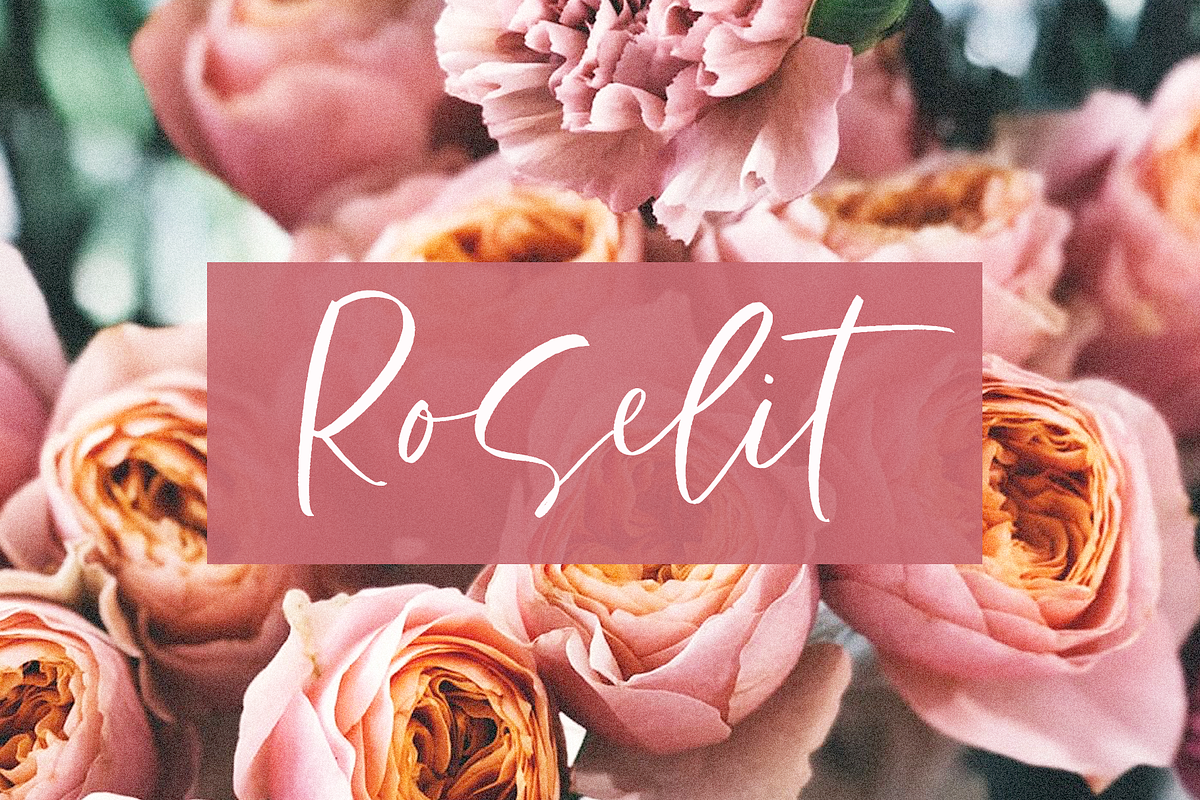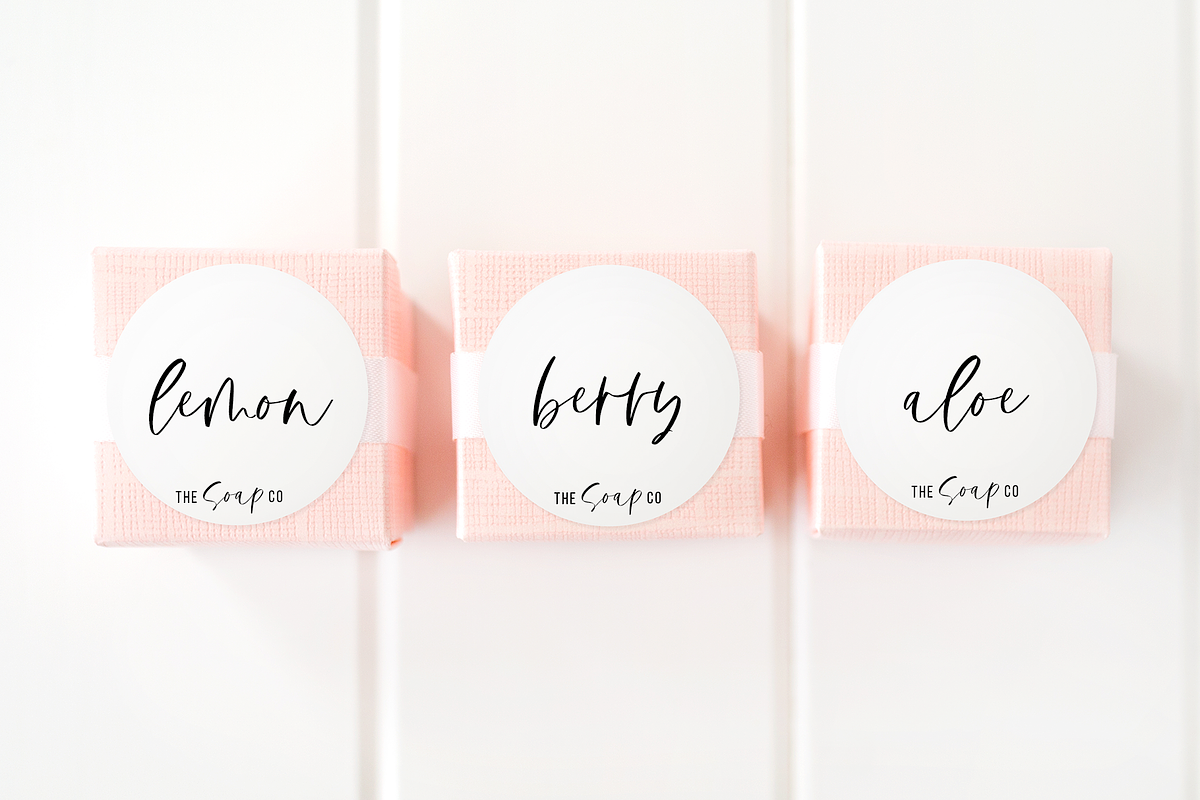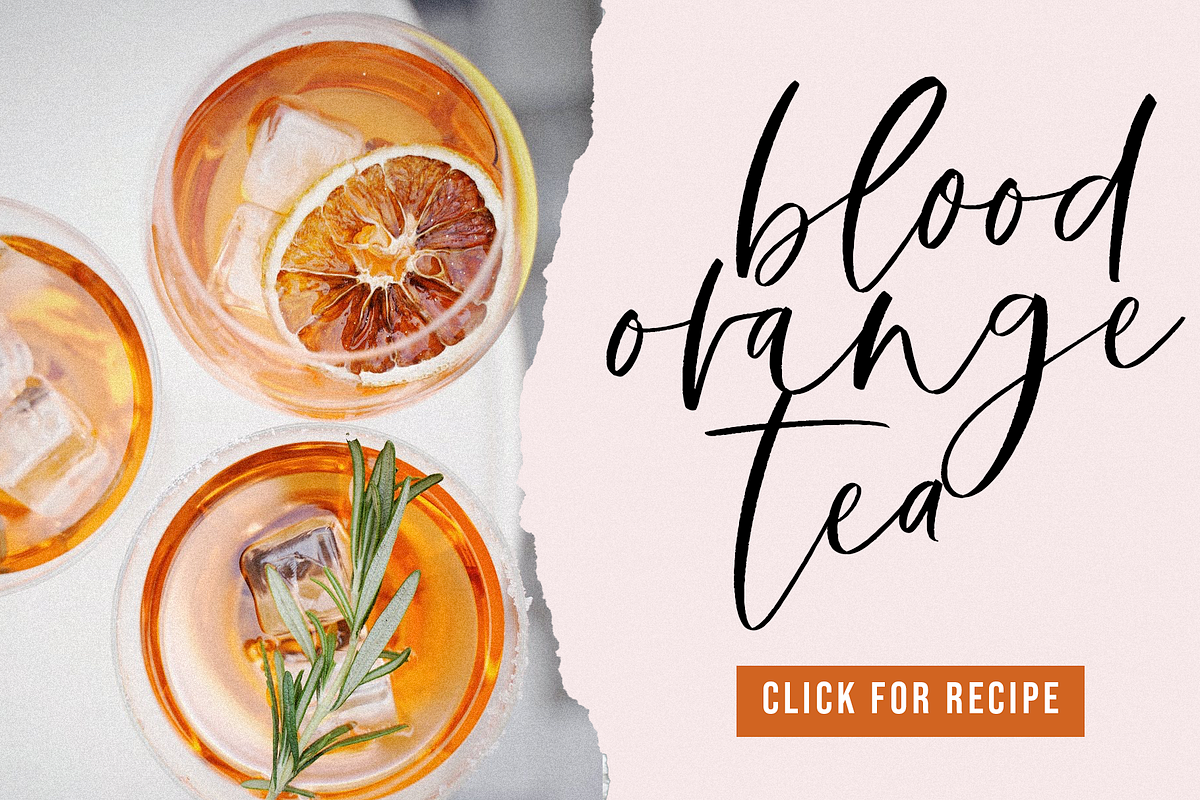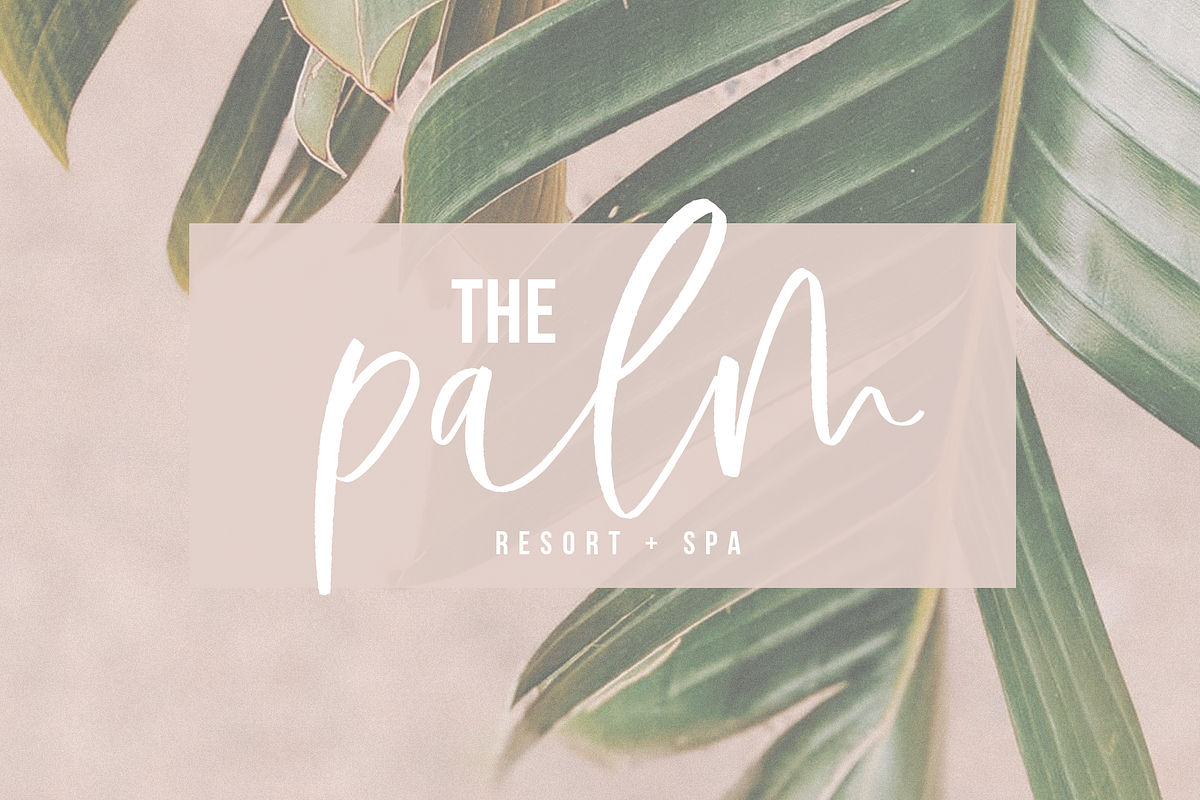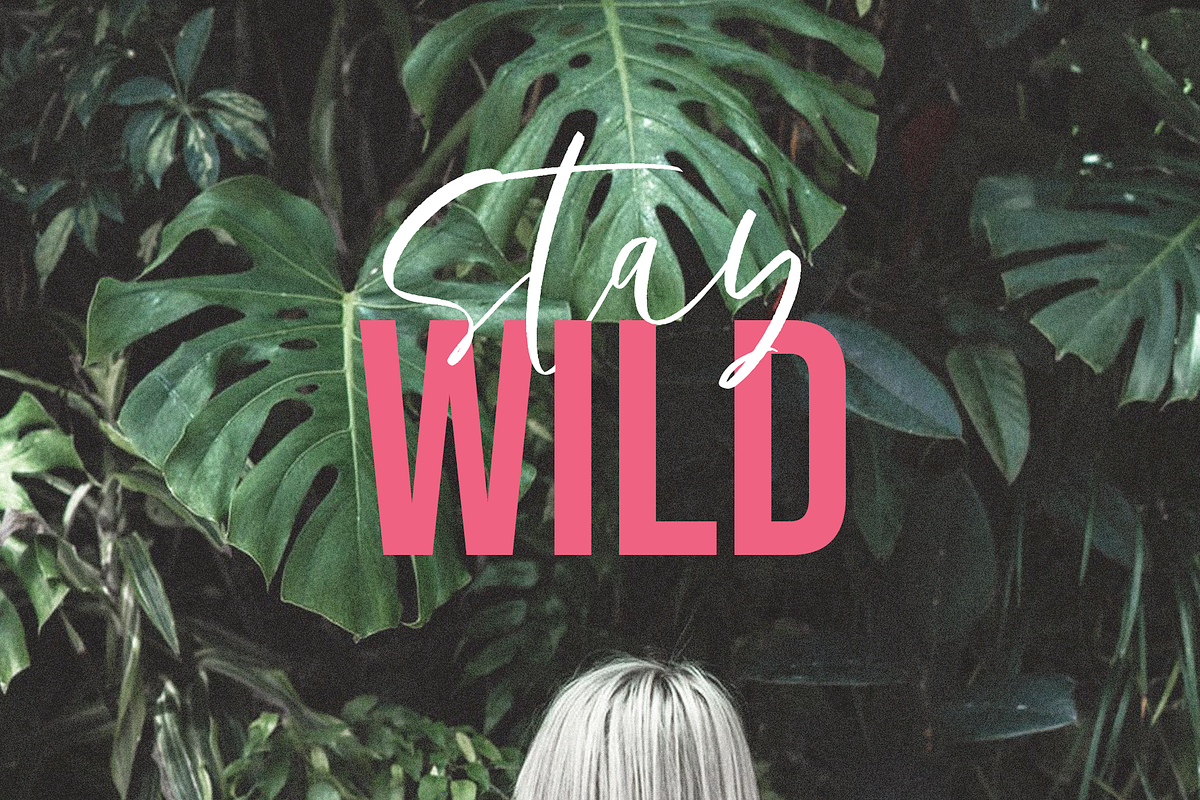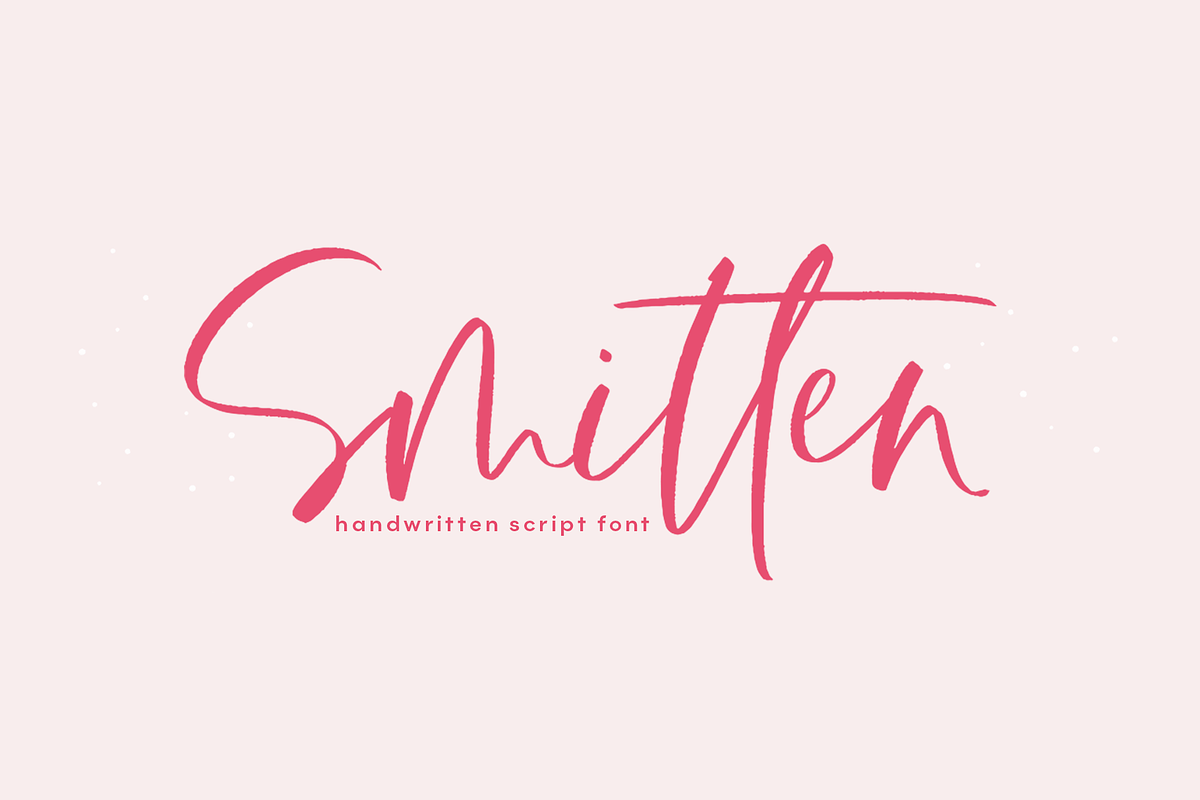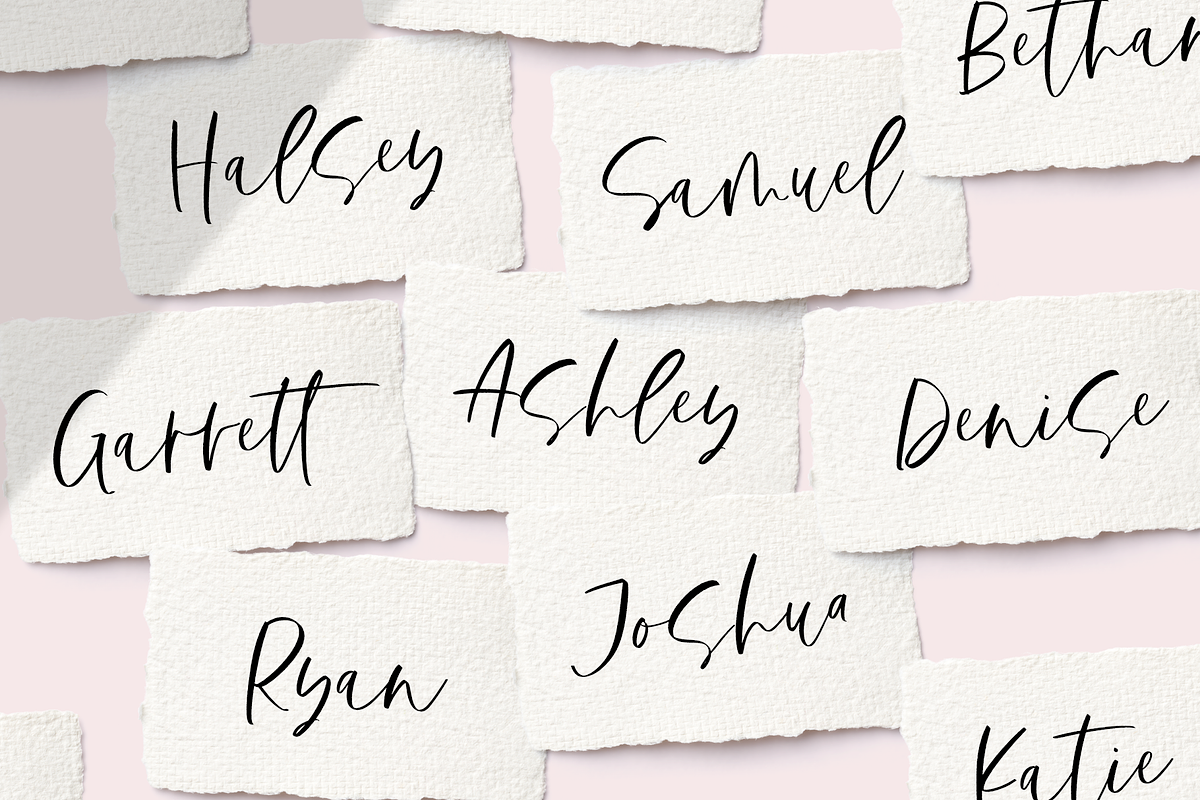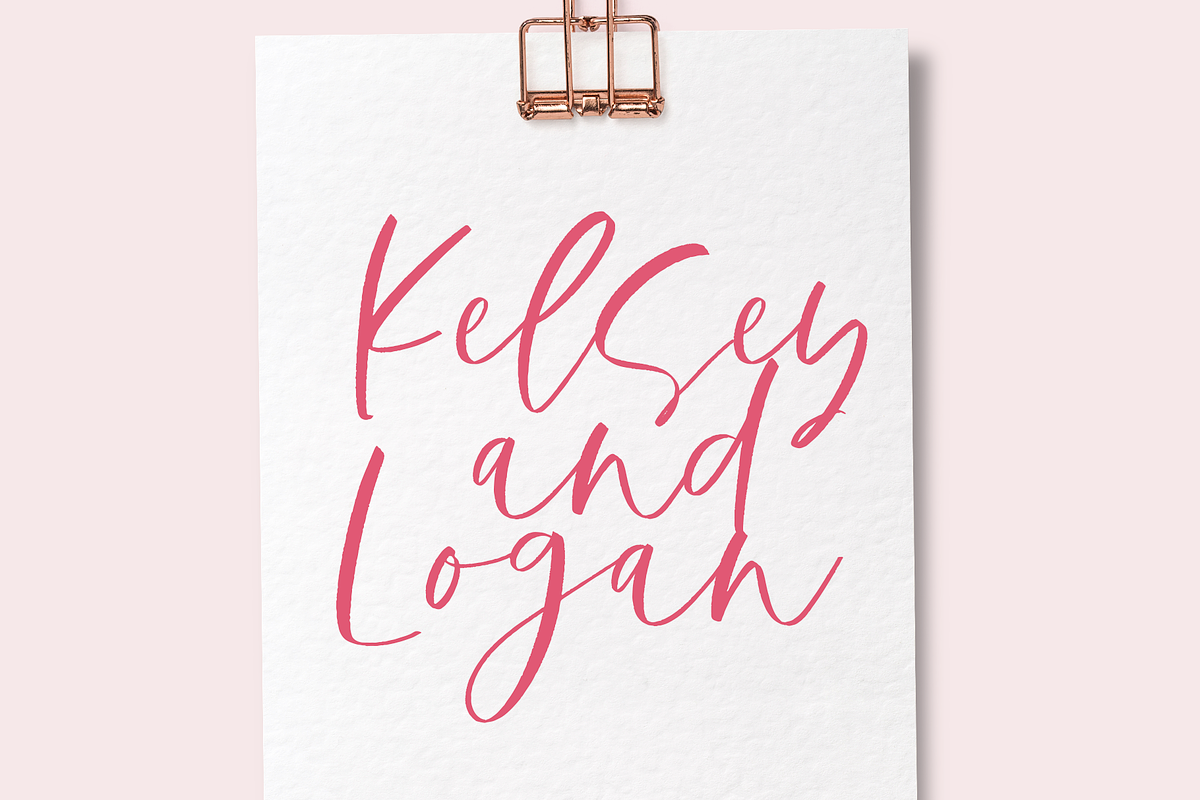
Smitten | Handwritten Script Font
Smitten is a chic handwritten font. It has a thin modern calligraphy look making it perfect for branding and digital designs. Use this font for logos, social media, websites, blogs, instagram, business cards, branding, and more!